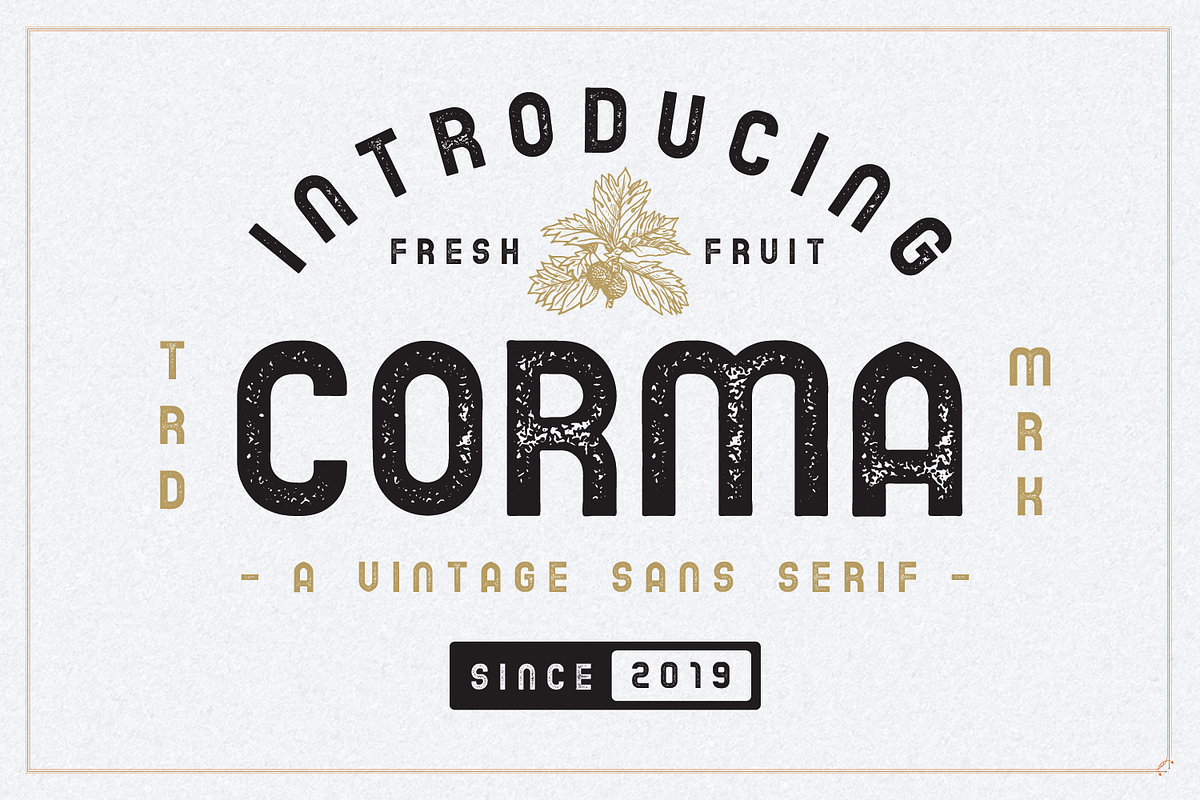
Corma is the bold vintage display typeface your retro branding projects have been waiting for.
Named after the date palm — "Corma" in Indonesian — this font family draws its identity from something timeless and beloved. Just like the fruit it's named for, Corma blends heritage with character, making it a natural fit for designs that need a strong vintage voice.
Corma is a vintage display family offering four versatile font files, including Regular and Textured versions, plus Italic versions of each. Whether you're crafting logos, business cards, magazine layouts, invitations, headers, or large-scale artwork, Corma delivers that authentic retro punch every time.